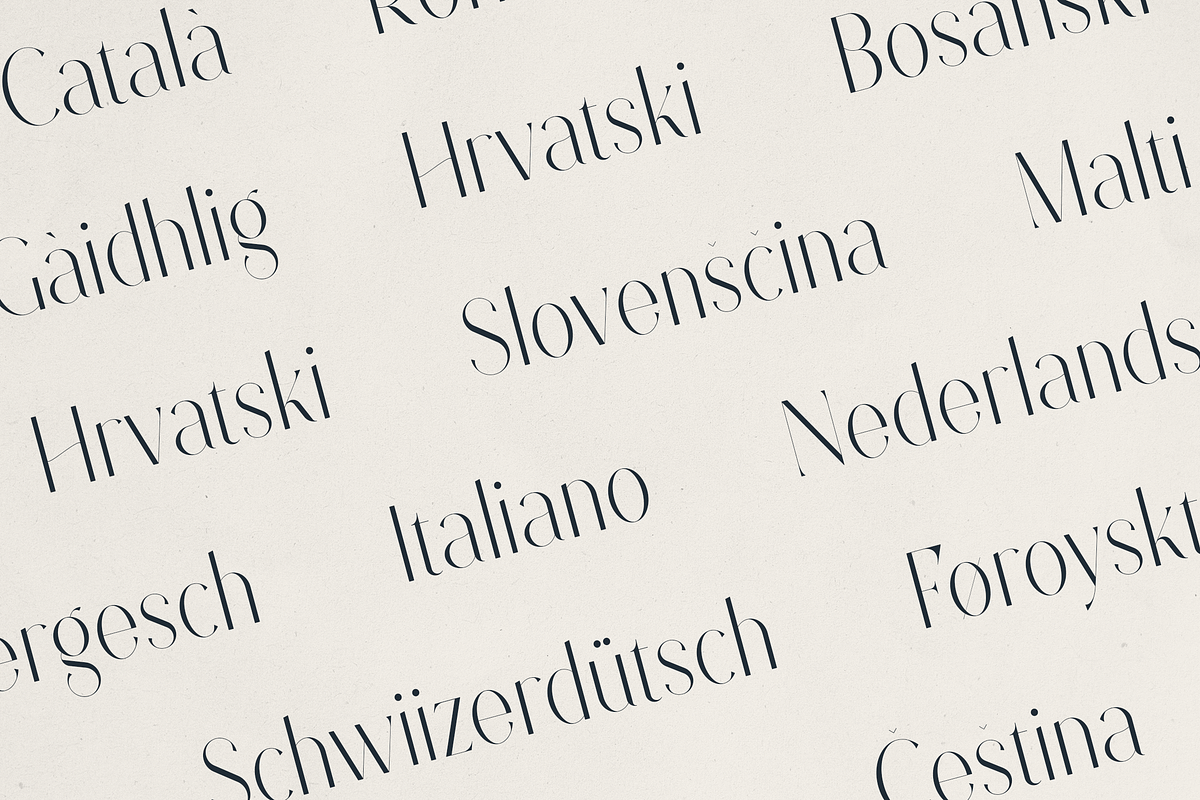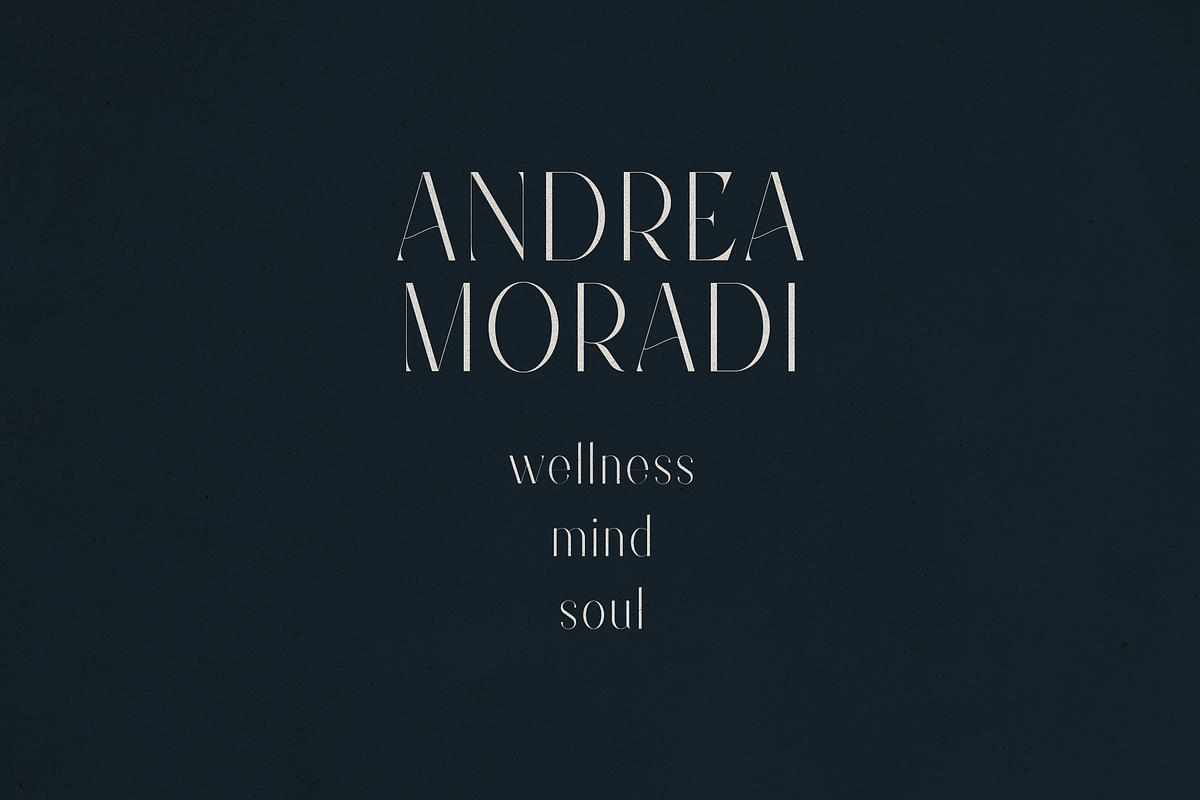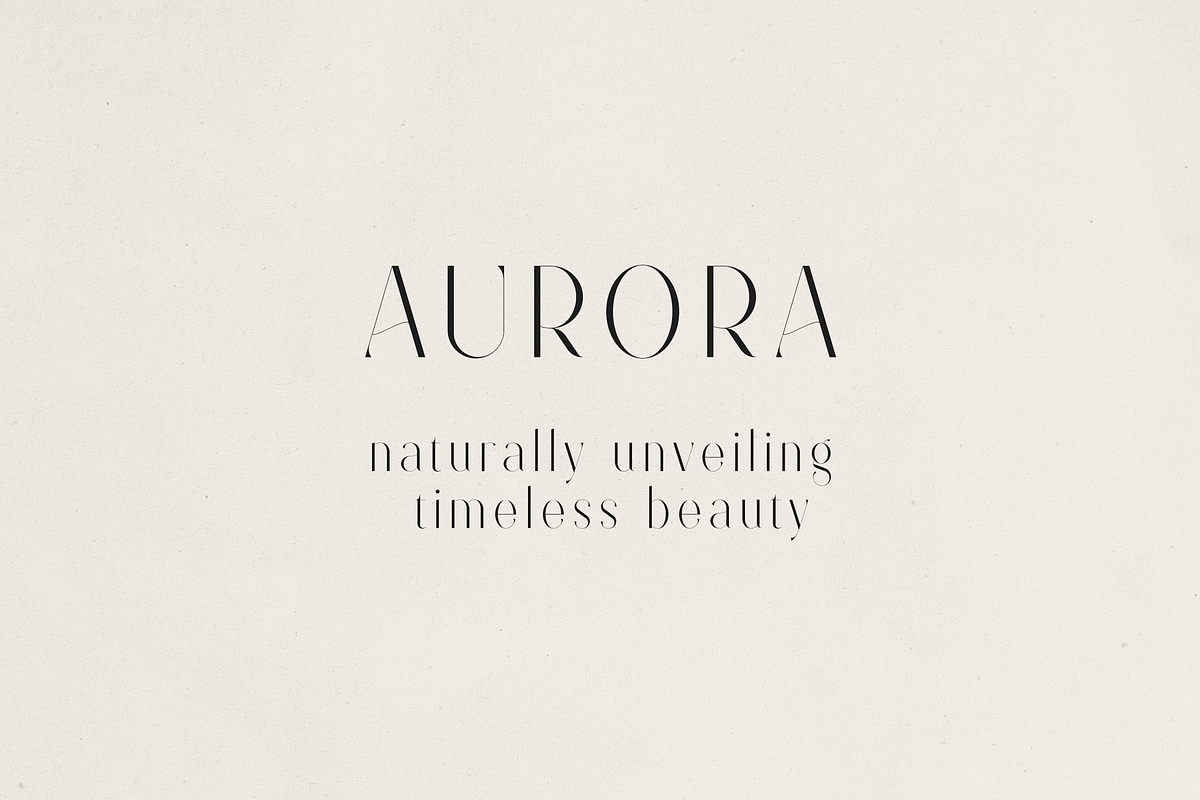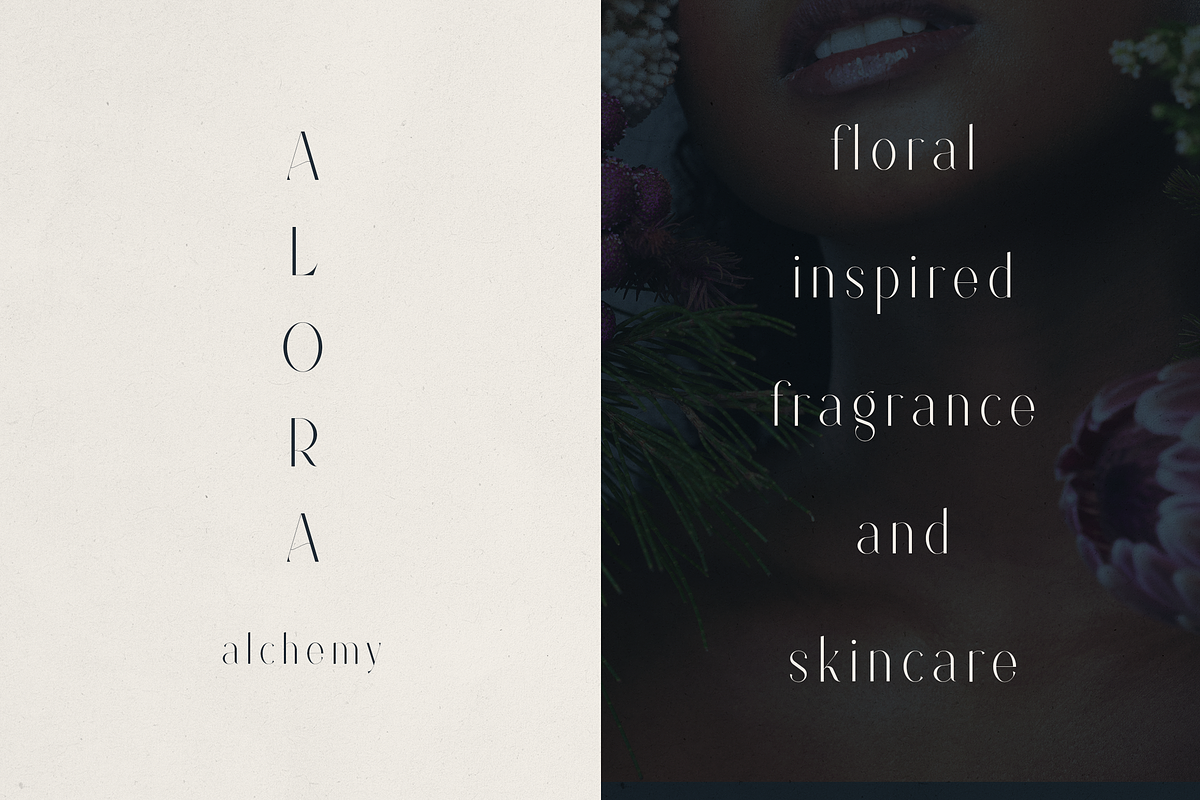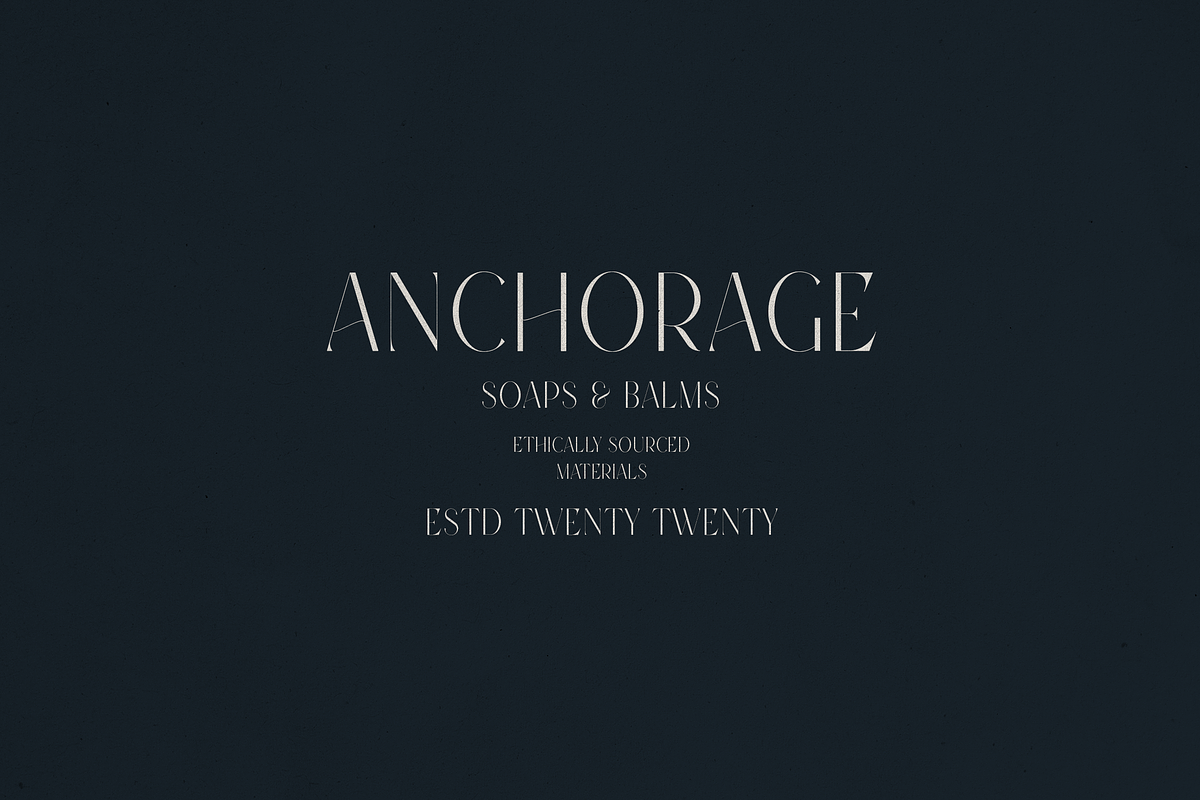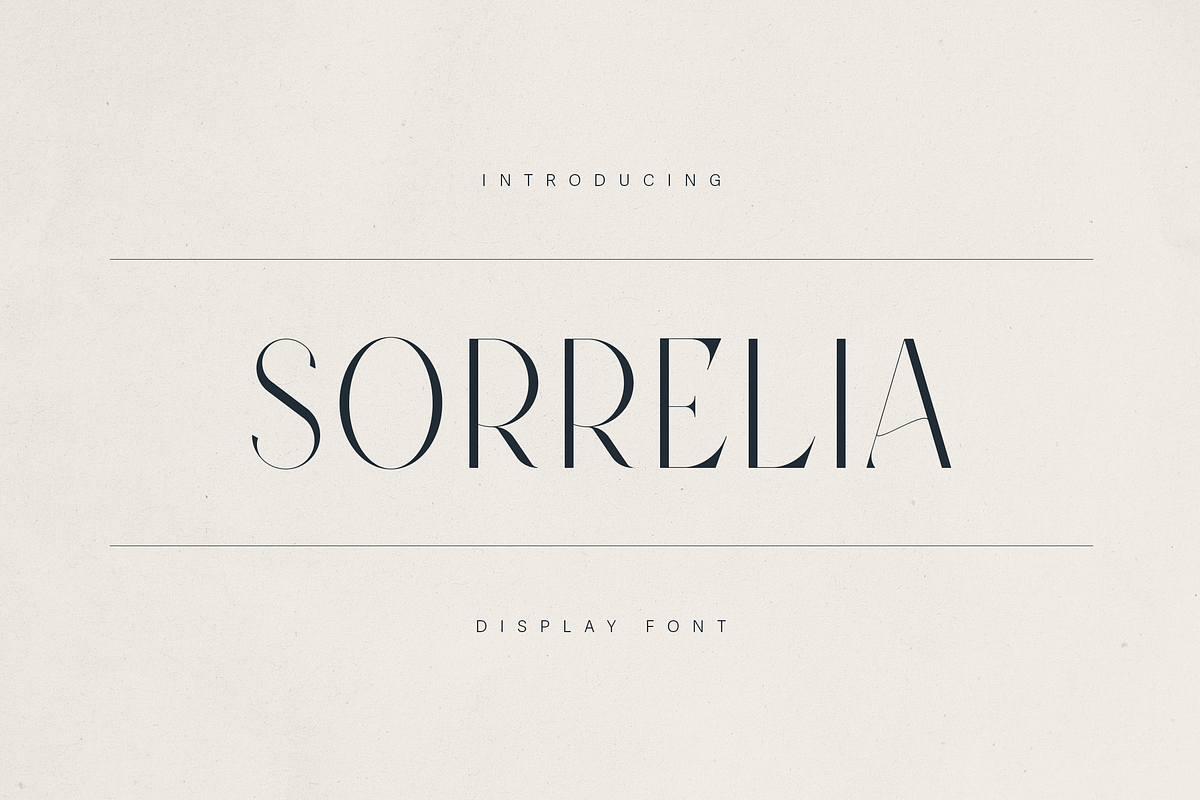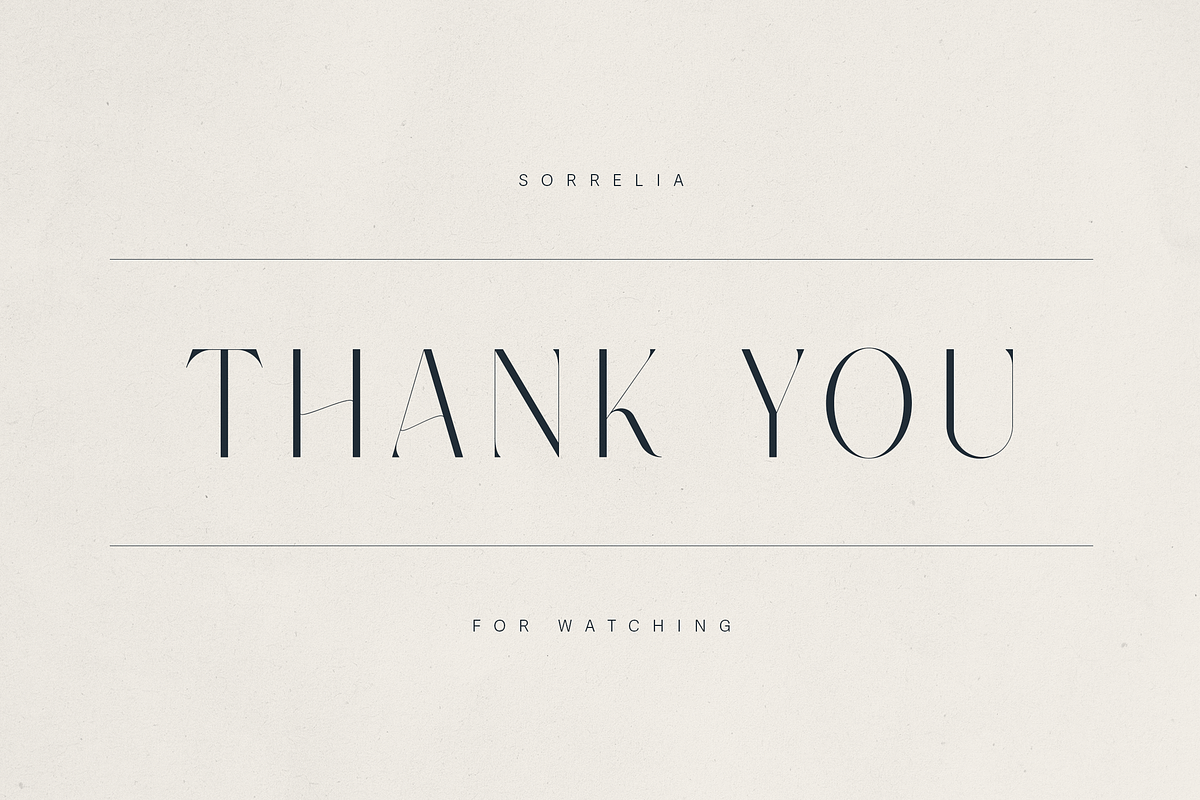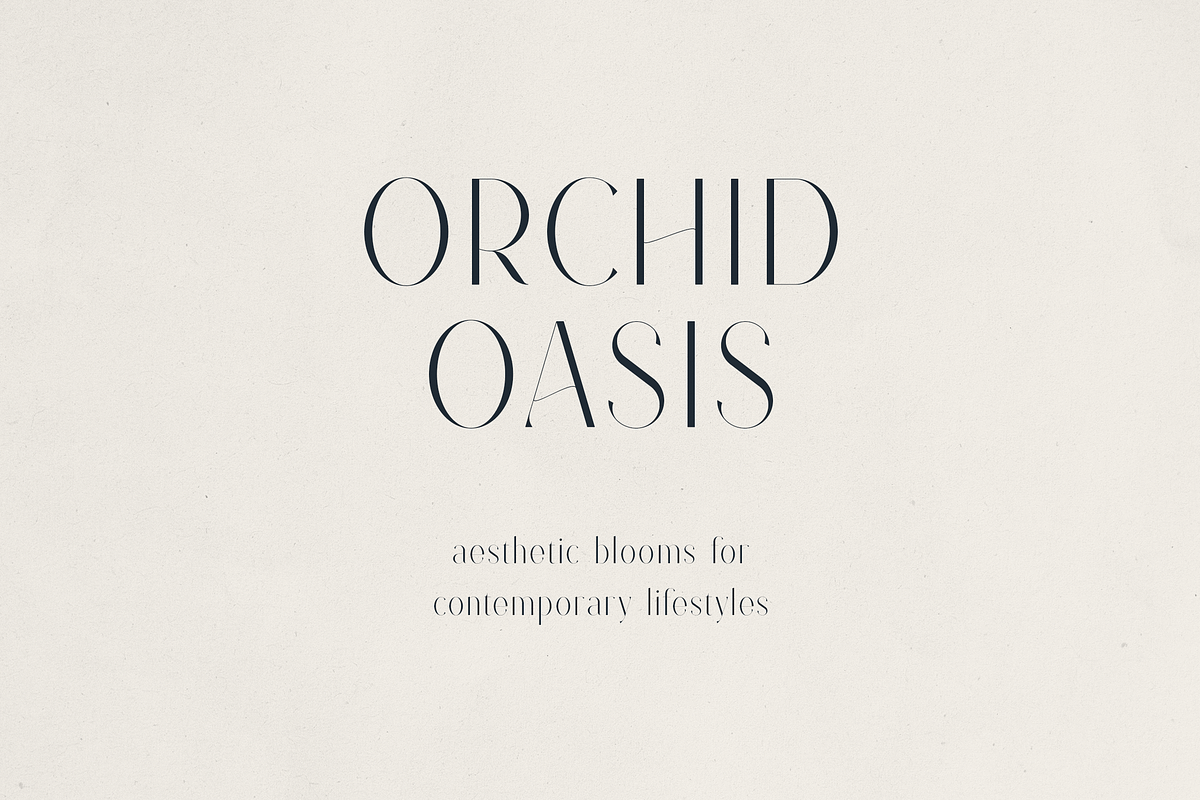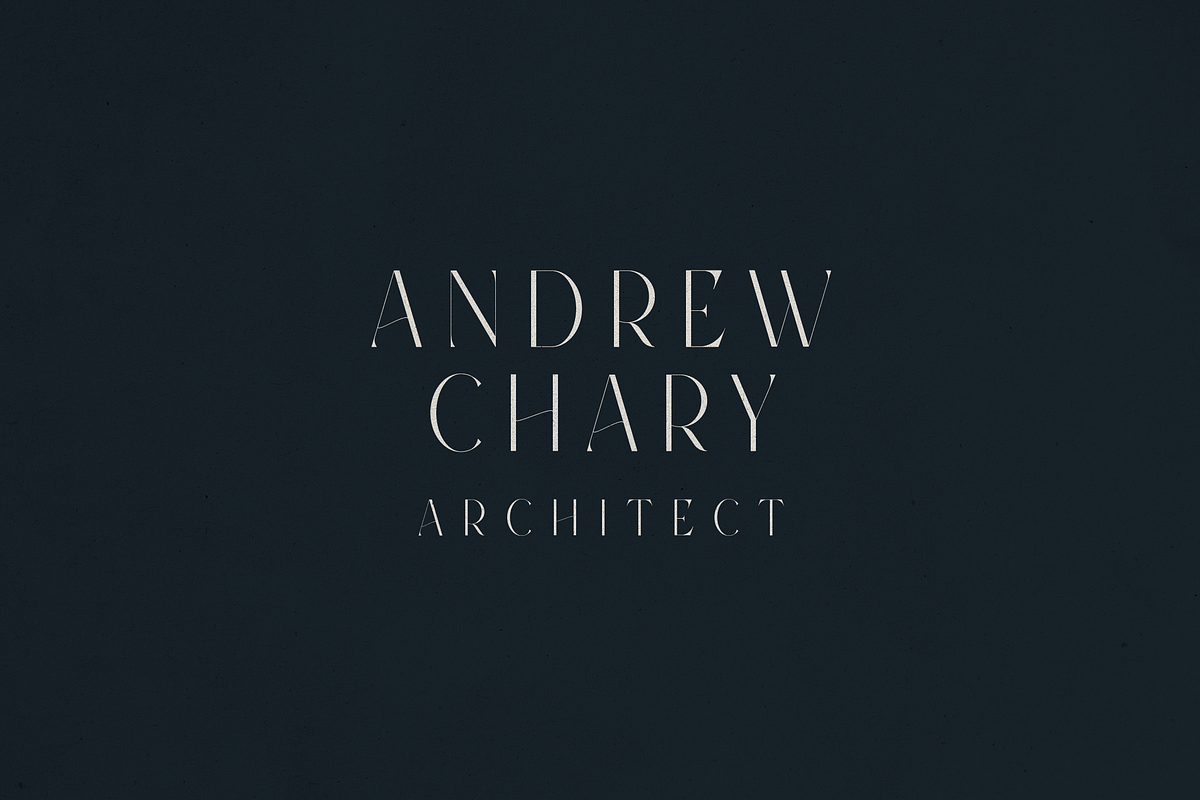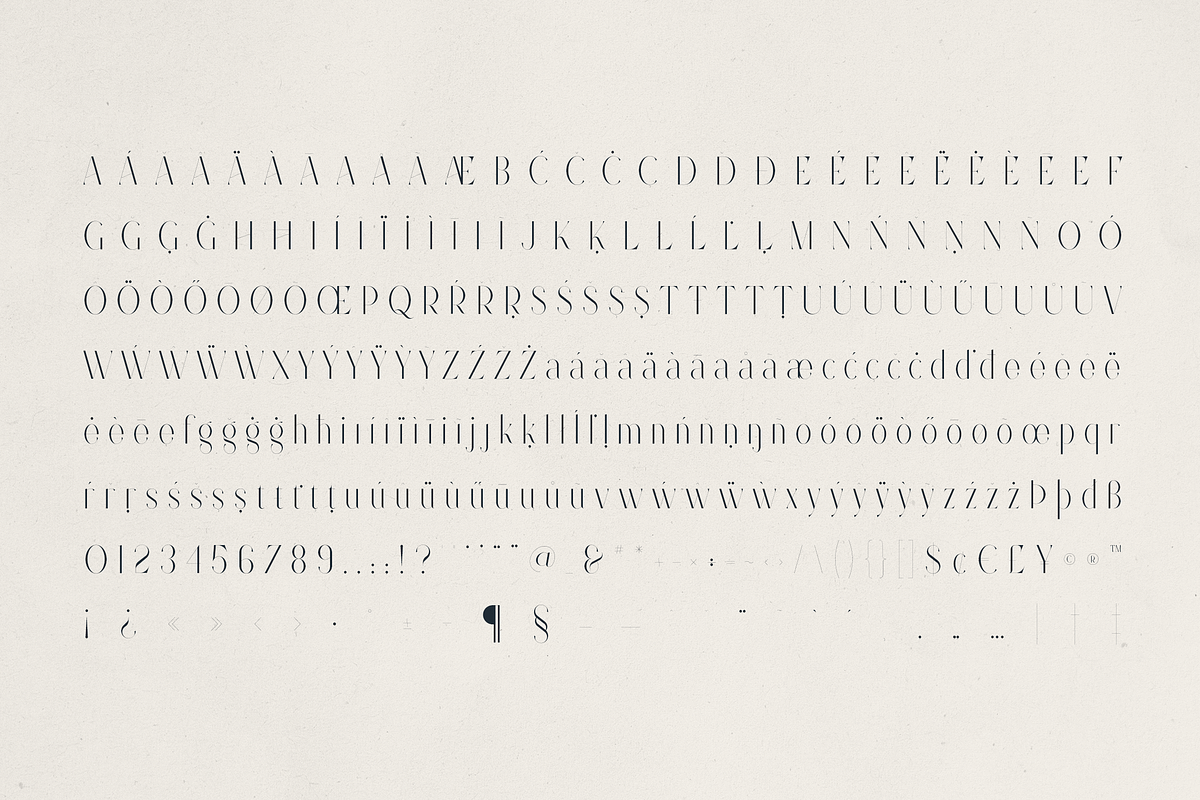
Sorrelia – Elegant Display Serif
Sorrelia – Elegant High-Contrast Display Serif
Sorrelia is a luxurious, high-contrast serif display font designed for refined visual storytelling. With a perfect blend of modern elegance and timeless sophistication, Sorrelia features elongated letterforms, hairline serifs, and artistic curves, making it ideal for upscale branding, beauty packaging, editorial design, and premium fashion campaigns.
- Elegant high-contrast strokes
- Sharp, sculpted serifs with unique character details
- Perfect for headlines, logos, packaging, and magazine titles
- Multilingual support covering 80+ Latin-based languages
Best For:
- Luxury branding & beauty products
- Fashion editorial layouts & portfolio showcases
- Wellness and lifestyle businesses
- High-end architecture & interior design studios
- Fragrance, skincare, and floral brands
Styling Characteristics:
- Feminine yet bold
- Delicate curves with dramatic vertical stress
- Balanced mix of minimalism and ornamentation
Visual Identity:
The presentation showcases Sorrelia's delicate, artistic identity with neutral backdrops and serene compositions. Its graceful forms are highlighted in settings like modern architecture branding, floral skincare campaigns, and minimal editorial spreads—demonstrating how it elevates messaging with poise and clarity.